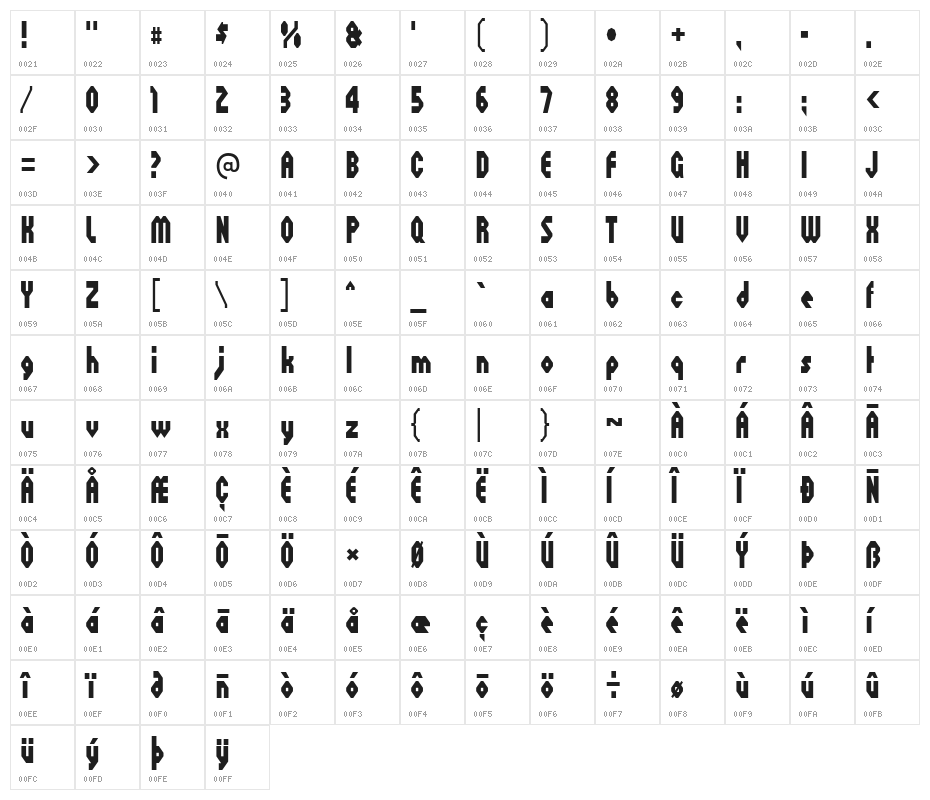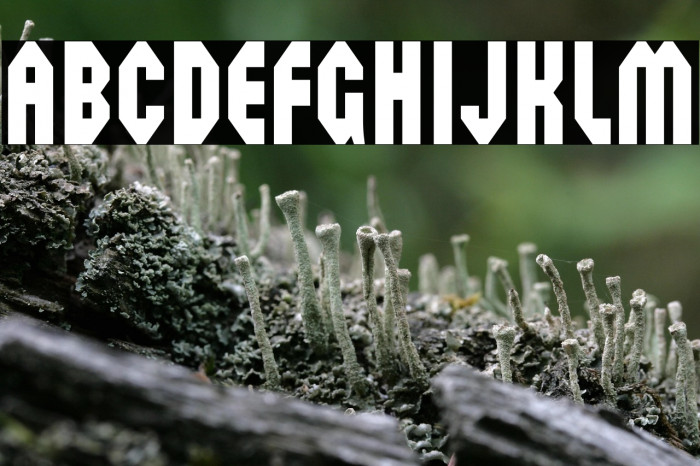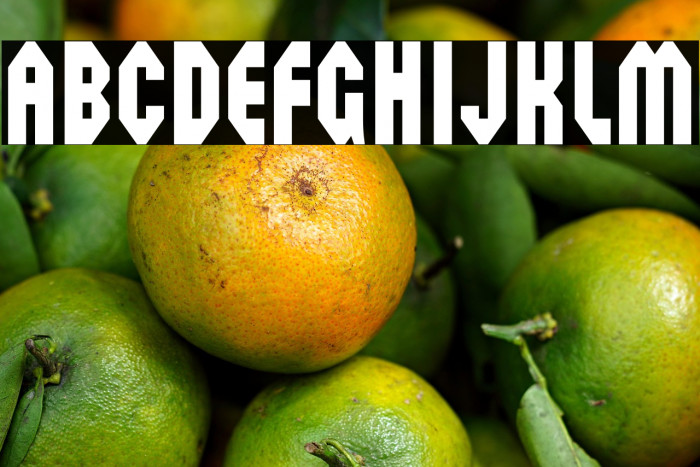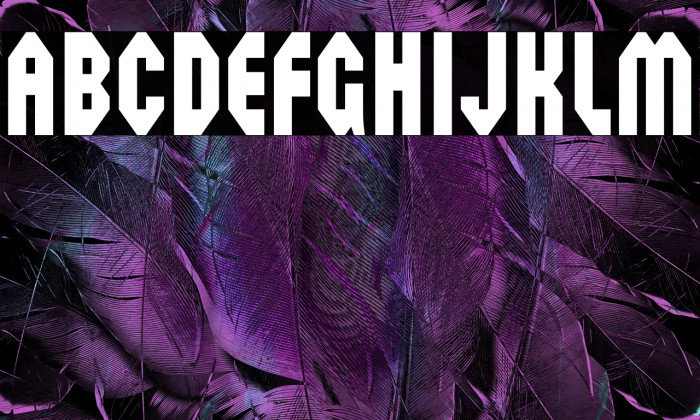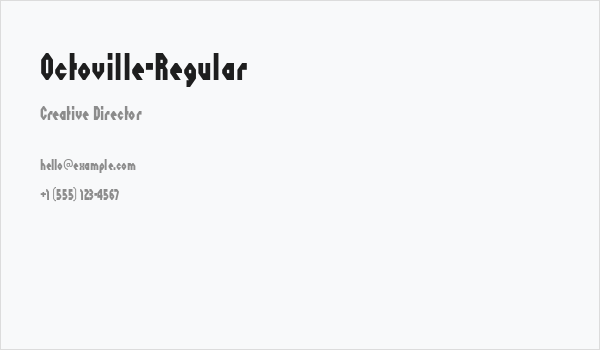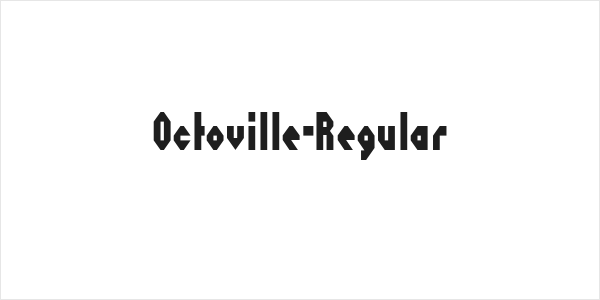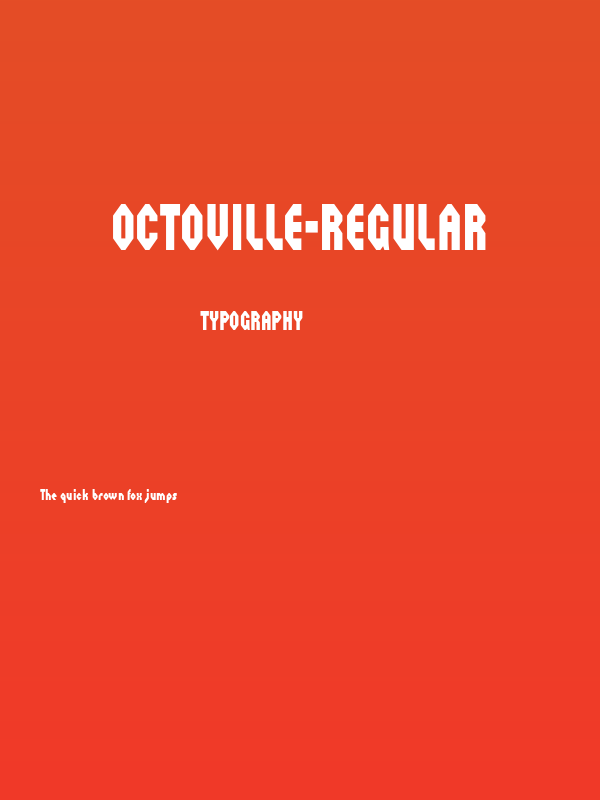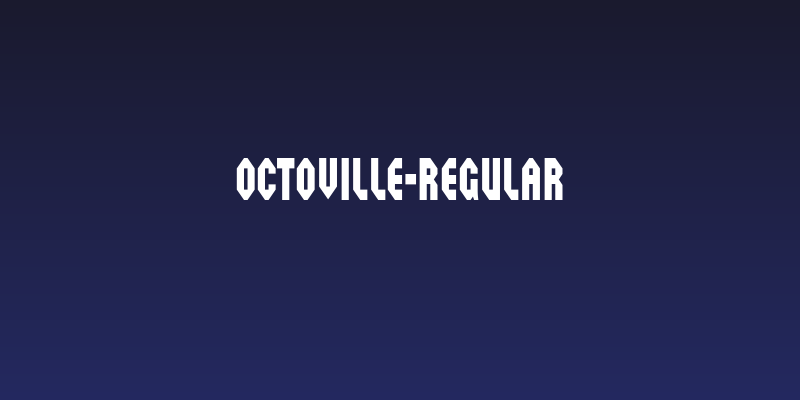
Octoville-Regular Font
Octoville-Regular Description
This font features a bold and geometric design with a distinct octagonal shape. The characters are constructed with sharp angles and straight lines, giving it a modern and industrial feel. The uppercase and lowercase letters maintain a consistent style, with the lowercase being slightly more compact. Numbers and special characters follow the same geometric pattern, ensuring uniformity across all glyphs. The font's unique structure makes it stand out, ideal for projects that require a strong visual impact.